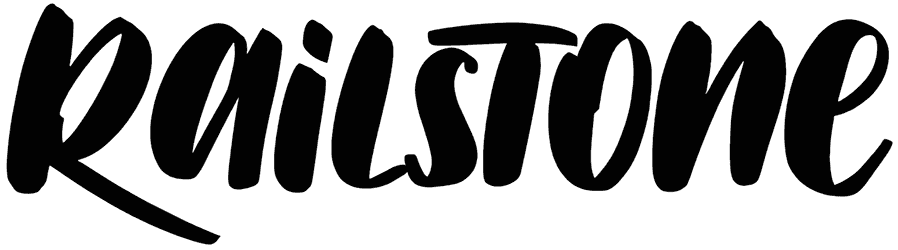
Railstone Font
A real mood with a bold handwritten face is what can make your design arresting and enchanting. As a brush font, Railstone will design many projects, for example, magazines, flyers, apparel, and more other the same. This script font doesn’t consist of numerals and most of the punctuation, yet you can place it and cause a modern outward for texts.